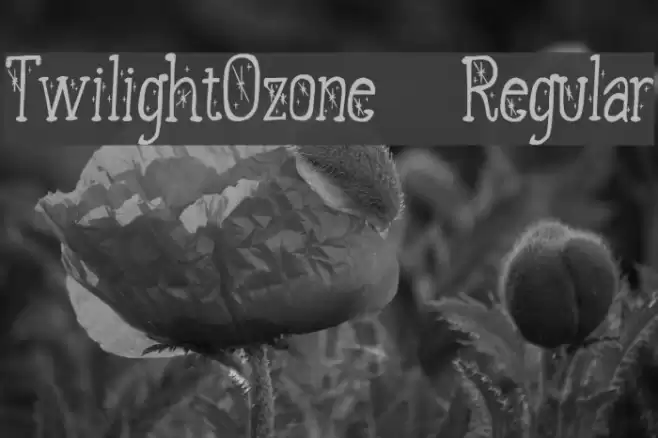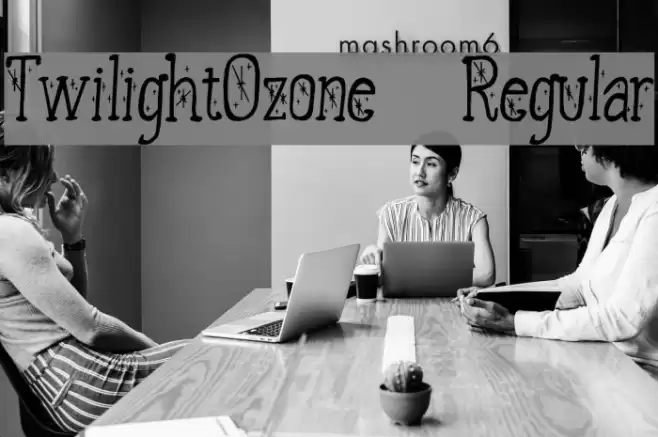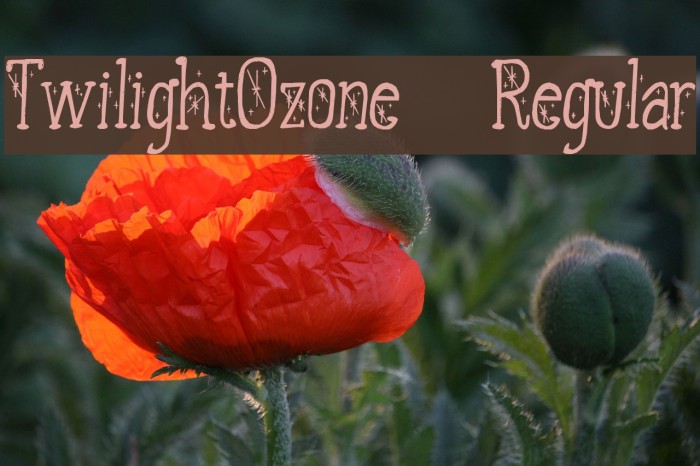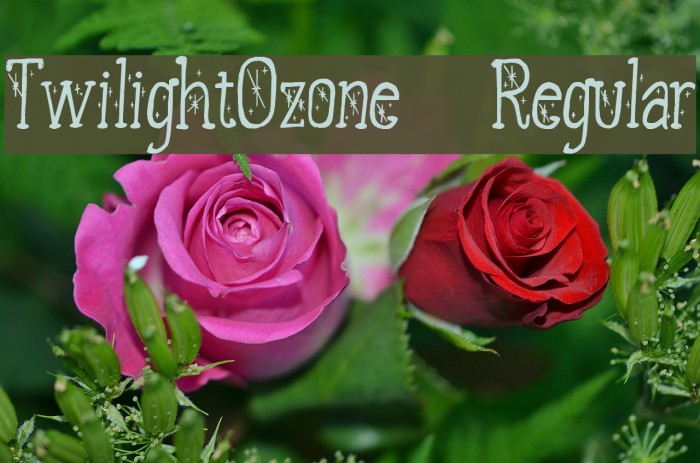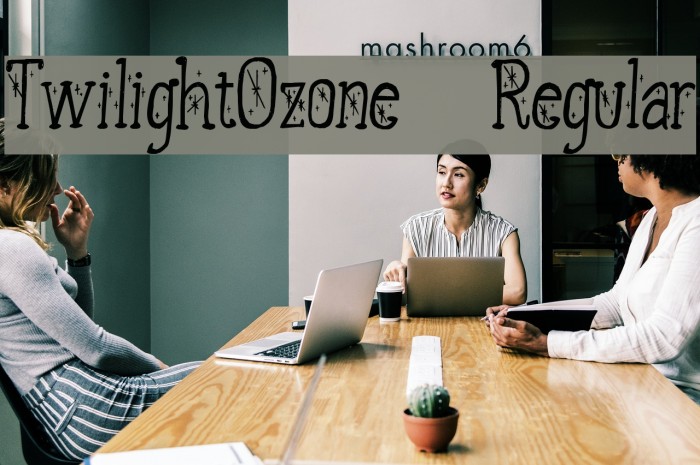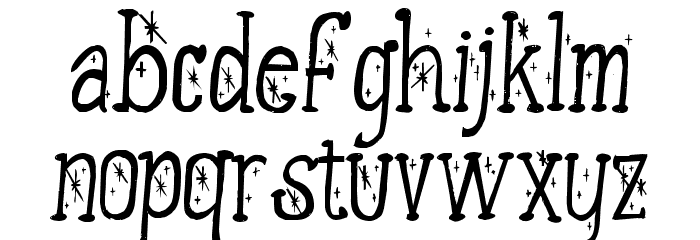
TwilightOzone-Regular Font
TwilightOzone-Regular Description
This font features a whimsical and decorative style, characterized by playful star-like embellishments integrated into the letterforms. The uppercase and lowercase letters maintain a consistent, slightly irregular stroke that adds a hand-drawn feel. The characters are bold and have a moderate width, making them stand out while still being legible. The unique design elements make it suitable for creative and fun projects, adding a touch of magic and fantasy to any text. The font's distinctiveness is enhanced by its decorative nature, making it ideal for eye-catching headlines or themed designs.
A whimsical, decorative font with star-like embellishments and a hand-drawn feel from Decorative fonts.
- Proposed Projects: Ideal for children's book covers, fantasy-themed event invitations, playful branding, or any project requiring a magical touch.